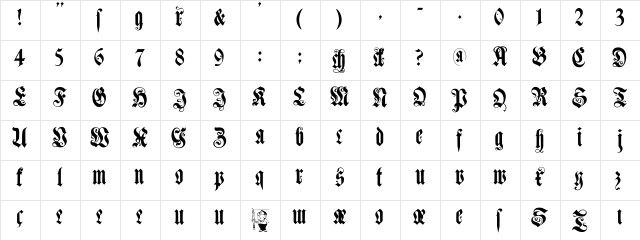
MuenchnerFraktur Regular Font Preview
MuenchnerFraktur Regular
MuenchnerFraktur Regular Font Details
Design Context for MuenchnerFraktur Typeface
MuenchnerFraktur channels the dramatic heritage of Fraktur and Gothic scripts, bringing a sense of historical gravitas to any design.
A natural fit for music packaging, gothic editorial design, and any project that needs historical weight.
Font Pairing: Pair with a clean neutral sans-serif for body copy to let MuenchnerFraktur's character lead without overwhelming the composition.
Pro Tip: Reserve MuenchnerFraktur for display and logo use — pair it with a clean sans-serif for body copy to prevent the composition from feeling oppressive.